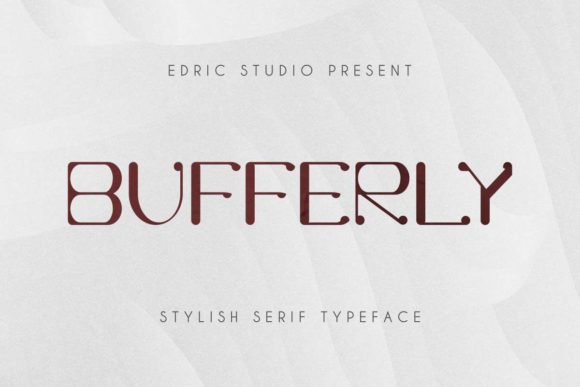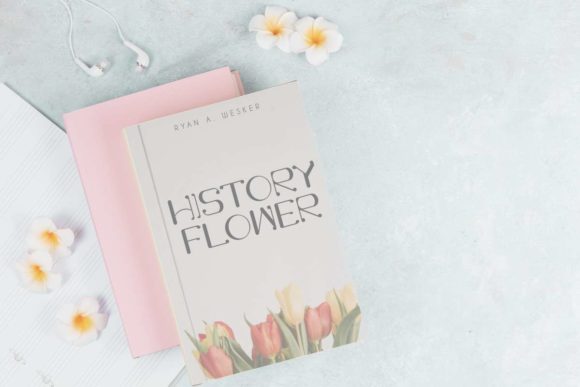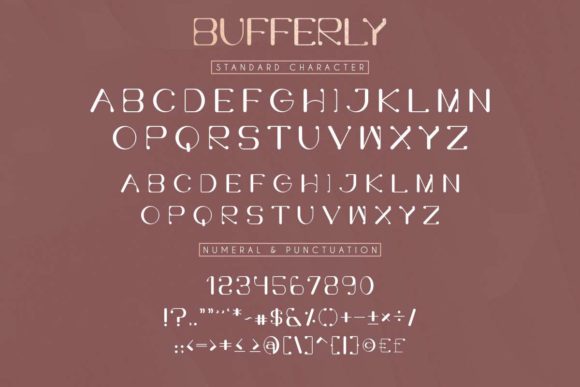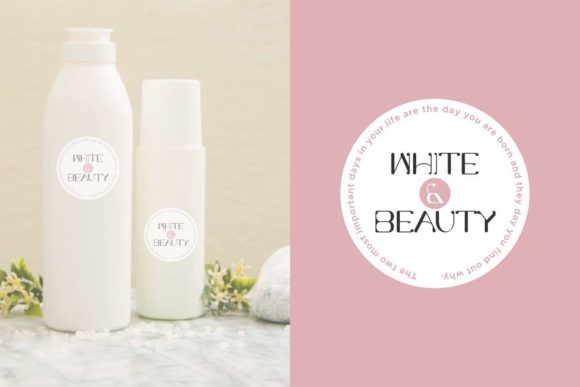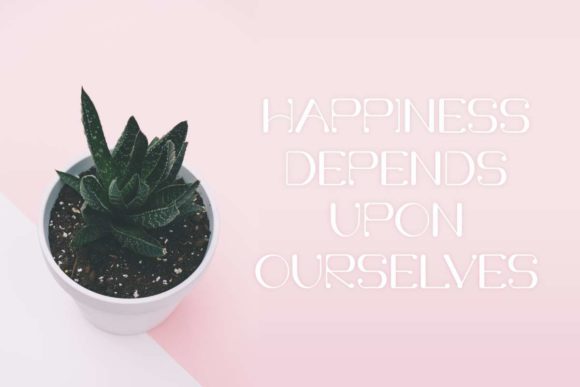
Introducing Bufferly Font: Elevate Your Designs with Elegance and Sophistication
Are you a designer or crafter looking for a font that can add a touch of elegance and sophistication to your projects? Look no further than Bufferly Font, a fancy, contemporary serif font that is sure to complement any design need perfectly. With its perfectly balanced mix of smooth and sharp lines, Bufferly Font is the ideal choice for anyone looking to elevate their designs and take them to the next level.
The Unique Characteristics of Bufferly Font
Bufferly Font is a modern serif font that boasts a unique and distinctive style. Its smooth lines and sharp edges create a beautiful contrast that adds depth and visual interest to any design. The font’s contemporary look and feel make it perfect for a wide range of design applications, from luxury branding and advertising to packaging and editorial design.
What Sets Bufferly Font Apart
So, what sets Bufferly Font apart from other fonts on the market? Here are just a few of its key features:
- Perfectly balanced mix of smooth and sharp lines: This unique combination creates a beautiful contrast that adds depth and visual interest to any design.
- Contemporary look and feel: Bufferly Font is a modern serif font that is perfect for designers and crafters who want to create designs that are fresh and up-to-date.
- Elegant and sophisticated: With its smooth lines and sharp edges, Bufferly Font is the ideal choice for anyone looking to add a touch of elegance and sophistication to their designs.
- Versatile: Bufferly Font can be used for a wide range of design applications, from luxury branding and advertising to packaging and editorial design.
How to Use Bufferly Font in Your Designs
Bufferly Font is easy to use and can be incorporated into a wide range of design projects. Here are just a few ideas to get you started:
- Luxury branding: Use Bufferly Font to create a luxurious and sophisticated brand identity that will help you stand out from the competition.
- Advertising: Bufferly Font is perfect for advertising designs, such as print ads, billboards, and digital ads.
- Packaging: Add a touch of elegance and sophistication to your packaging designs with Bufferly Font.
- Editorial design: Use Bufferly Font to create beautiful and elegant editorial designs, such as magazines, newspapers, and books.
Why Designers and Crafters Love Bufferly Font
Designers and crafters love Bufferly Font for a variety of reasons. Here are just a few:
- Easy to read: Bufferly Font is clear and easy to read, making it perfect for designs where readability is key.
- Highly versatile: Bufferly Font can be used for a wide range of design applications, making it a great addition to any designer’s toolkit.
- Unique and distinctive: Bufferly Font has a unique and distinctive style that sets it apart from other fonts on the market.
- Elegant and sophisticated: Bufferly Font adds a touch of elegance and sophistication to any design, making it perfect for designers and crafters who want to create high-end designs.
In conclusion, Bufferly Font is a fantastic choice for designers and crafters who want to add a touch of elegance and sophistication to their designs. With its perfectly balanced mix of smooth and sharp lines, contemporary look and feel, and highly versatile design, Bufferly Font is the ideal choice for anyone looking to elevate their designs and take them to the next level. Whether you’re working on a luxury branding project, an advertising design, or a packaging design, Bufferly Font is sure to complement your design needs perfectly.